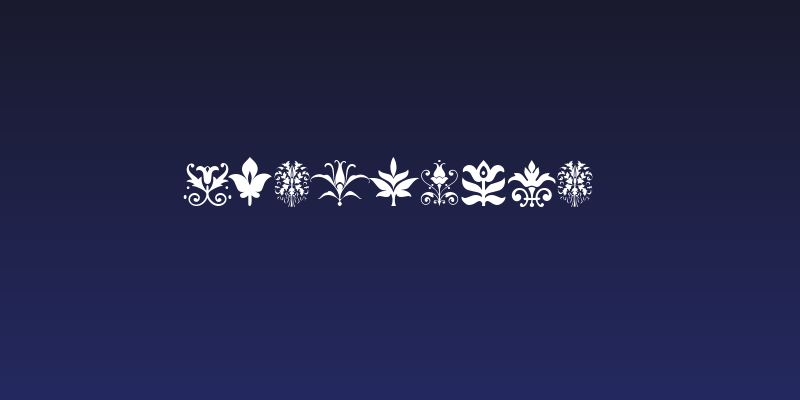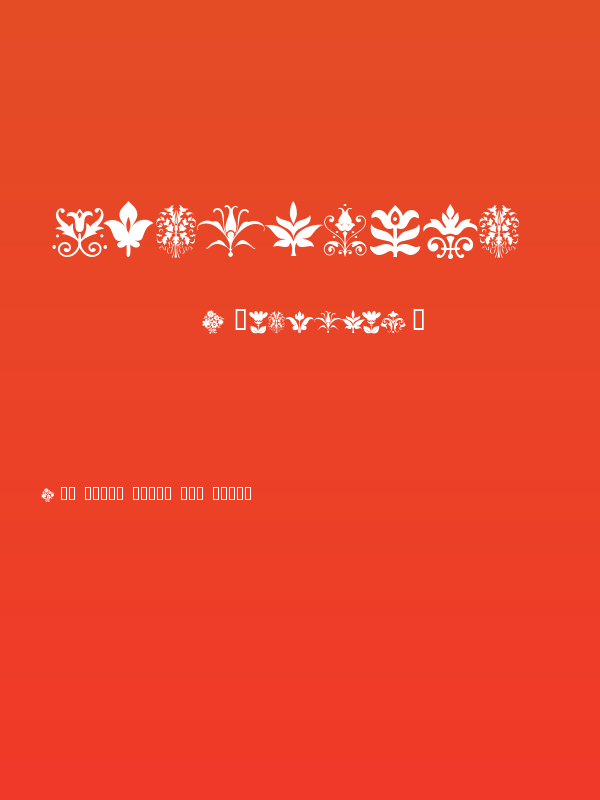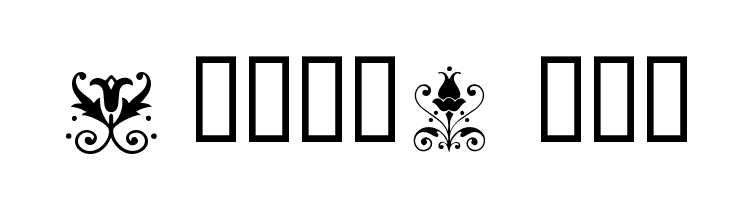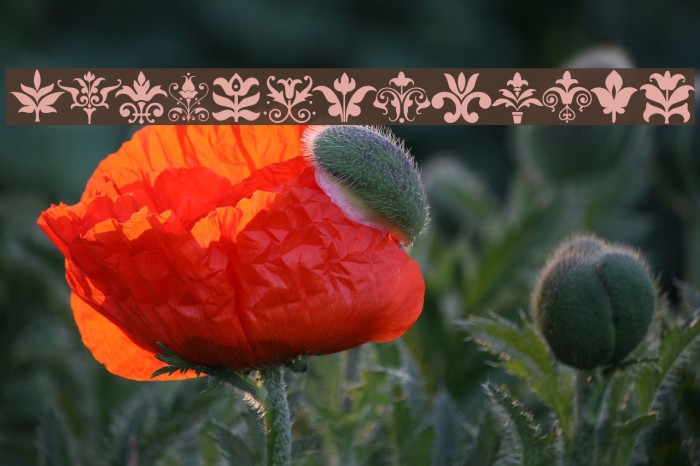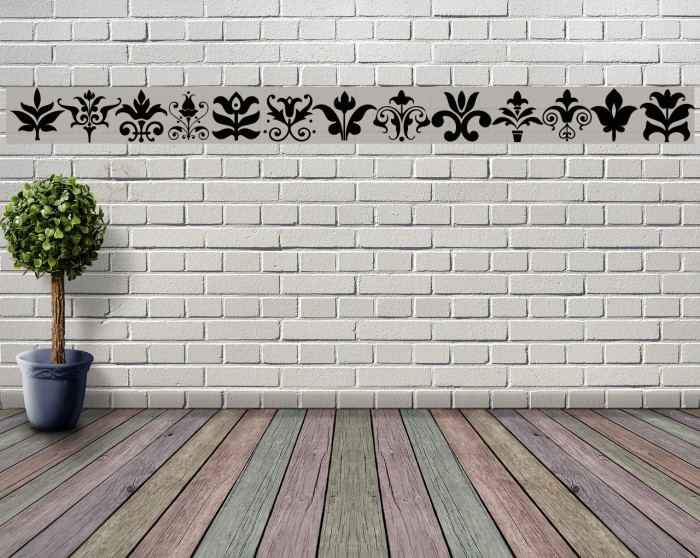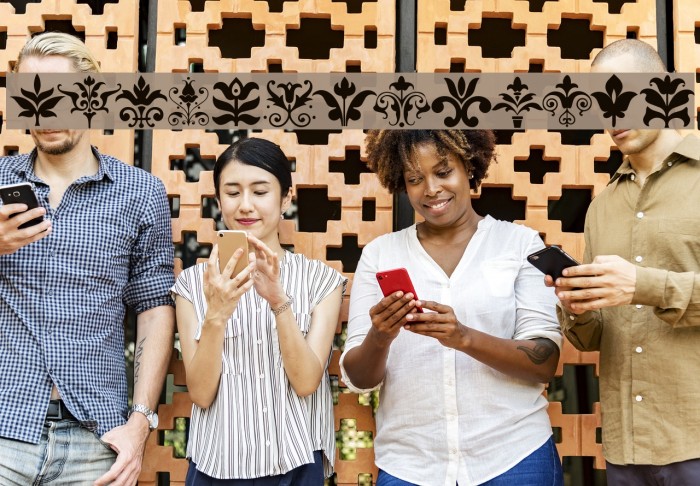
FloraDeco Font
FloraDeco Description
This is a decorative font featuring intricate floral and ornamental designs. Each character is represented by a unique floral motif, showcasing a variety of plant-inspired elements. The designs are highly detailed, with symmetrical patterns and elegant curves, making it ideal for artistic and decorative purposes. The font exudes a sense of sophistication and creativity, perfect for projects that require a touch of nature-inspired elegance. The floral elements are bold and striking, capturing attention with their intricate beauty.
| Use Case | Logos, Decorative elements, Artistic projects |
| Proposed Projects | Ideal for wedding invitations, greeting cards, decorative posters, and branding materials that require a nature-inspired aesthetic. |